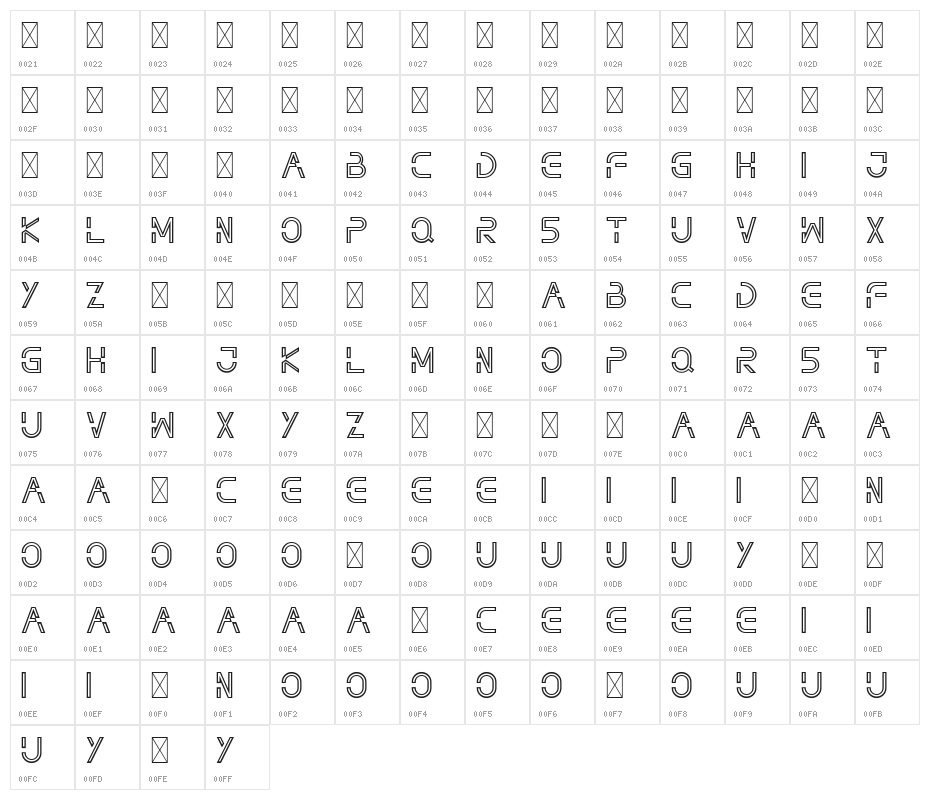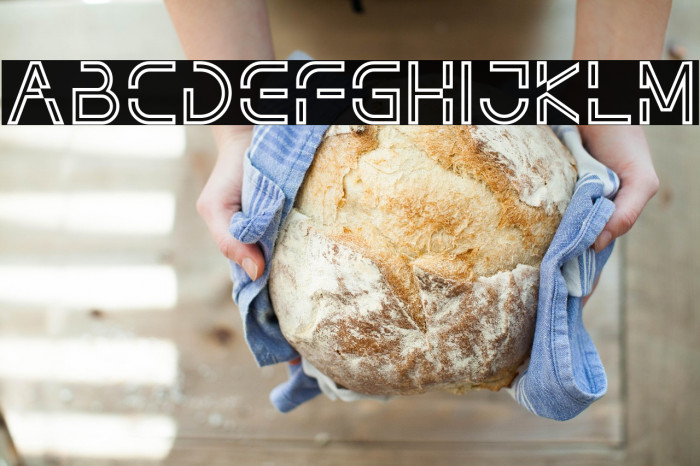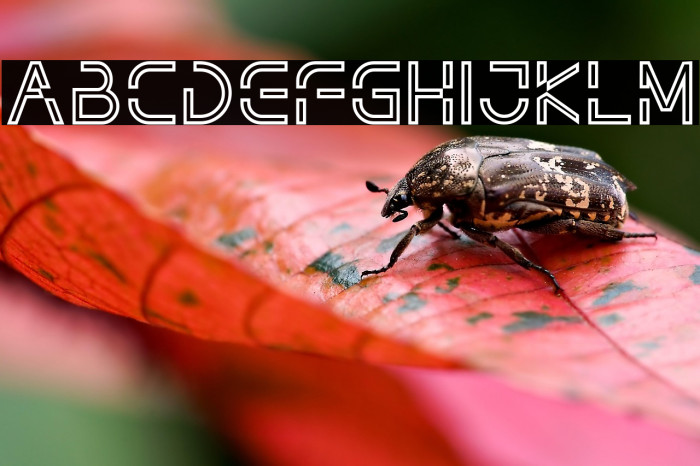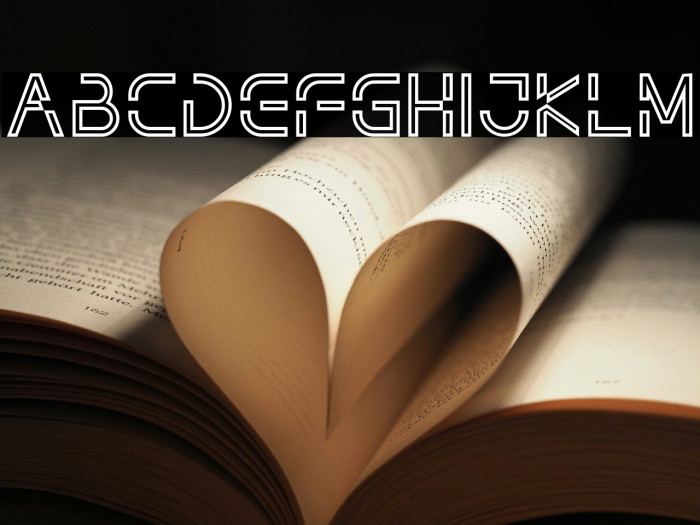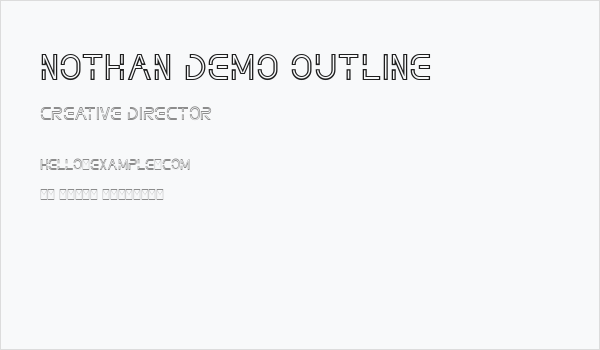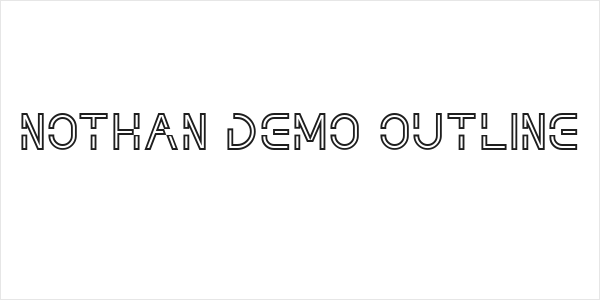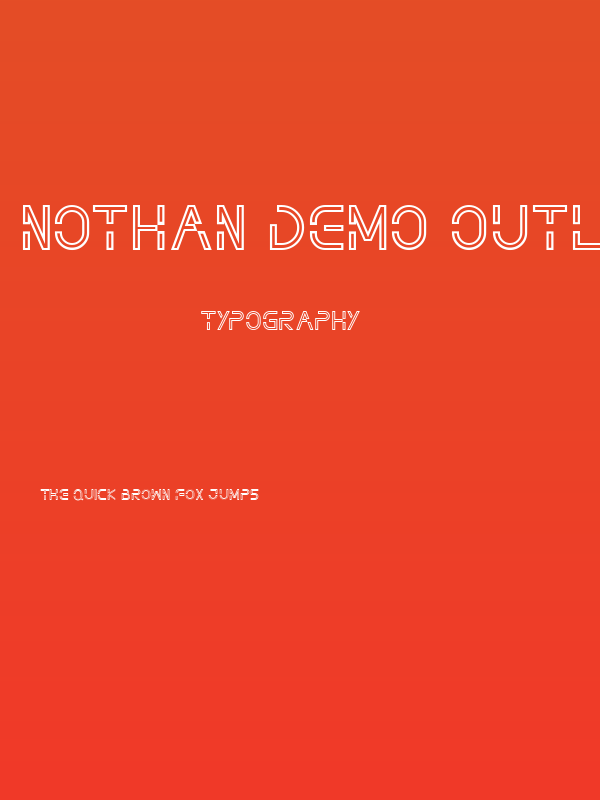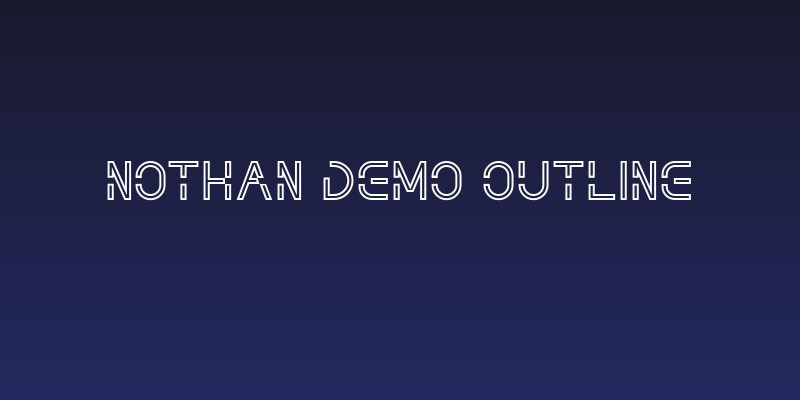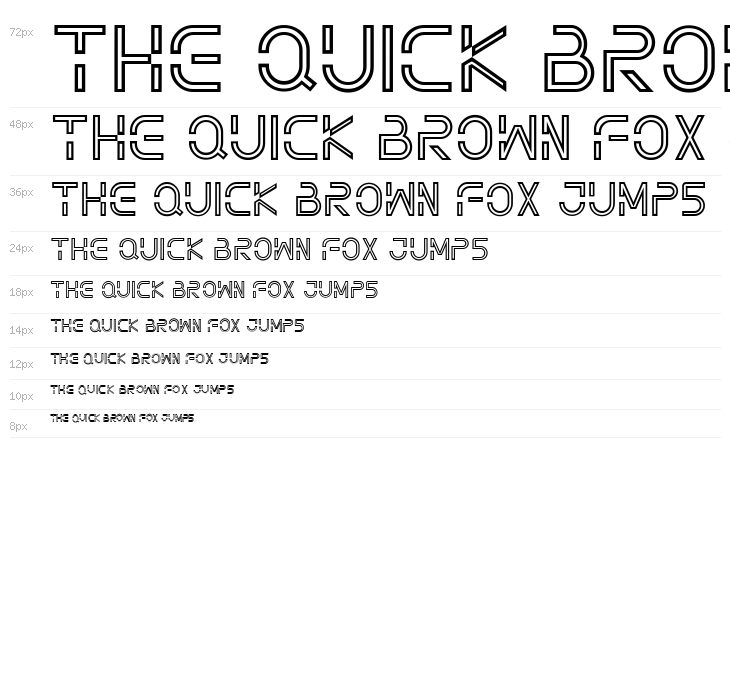
NOTHAN DEMO Outline Font
NOTHAN DEMO Outline Description
This font features a modern, geometric design with an outline style that emphasizes its angular and structured form. Each character is crafted with precision, showcasing a blend of straight lines and curves that create a futuristic and technical appearance. The uppercase letters are bold and commanding, while the lowercase letters maintain the same structural integrity. The numerals and special characters are consistent with the overall design, making this font suitable for projects that require a contemporary and innovative look.
| Proposed Projects | Ideal for technology branding, futuristic posters, digital interfaces, and innovative product packaging. |